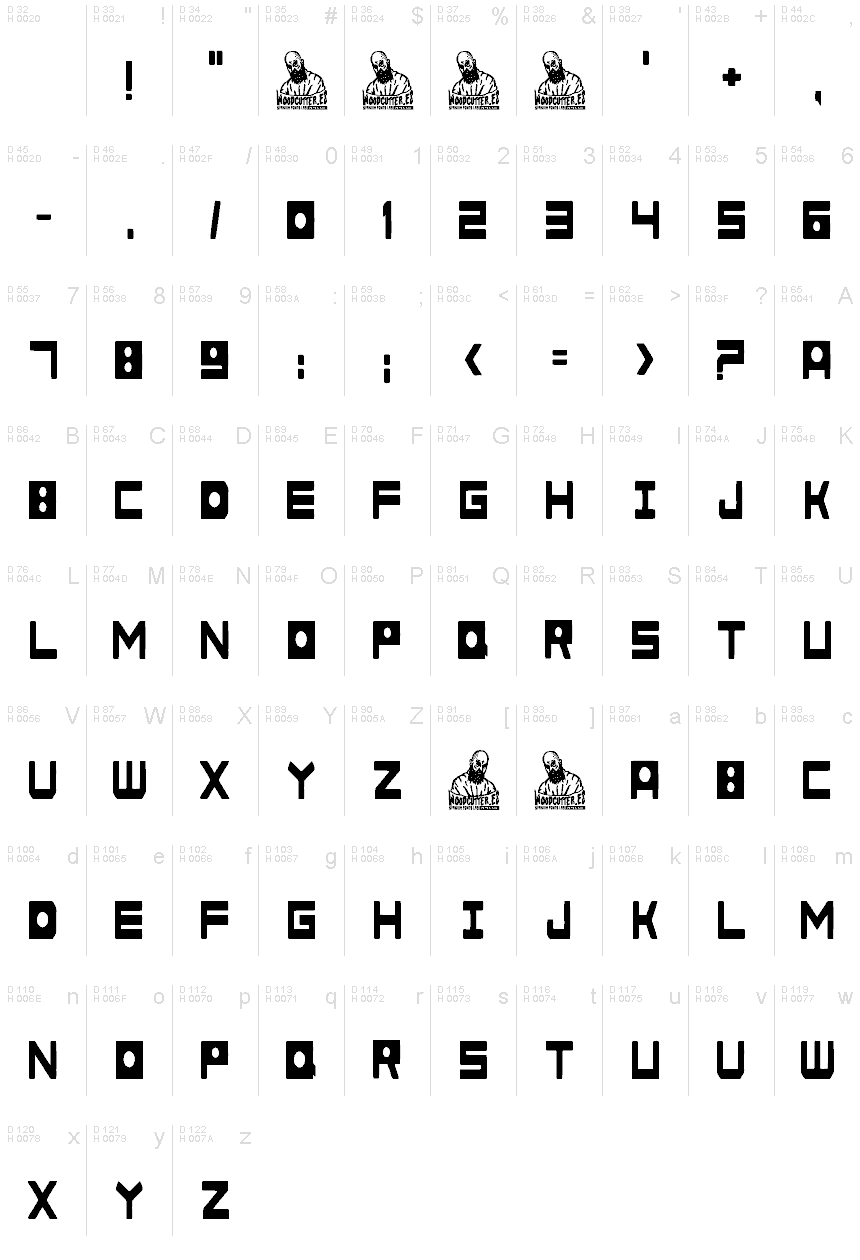
The Orange Computer
The Orange Computer font by Woodcutter is a bold display font with a technical and futuristic concept. It will apply striking typography designs based on its geometric structure, modern vibe, and bold impressions. The font appearance gives off a digital impression inspired by computers and machine coding with hard structured letters and an unusual presentation style.